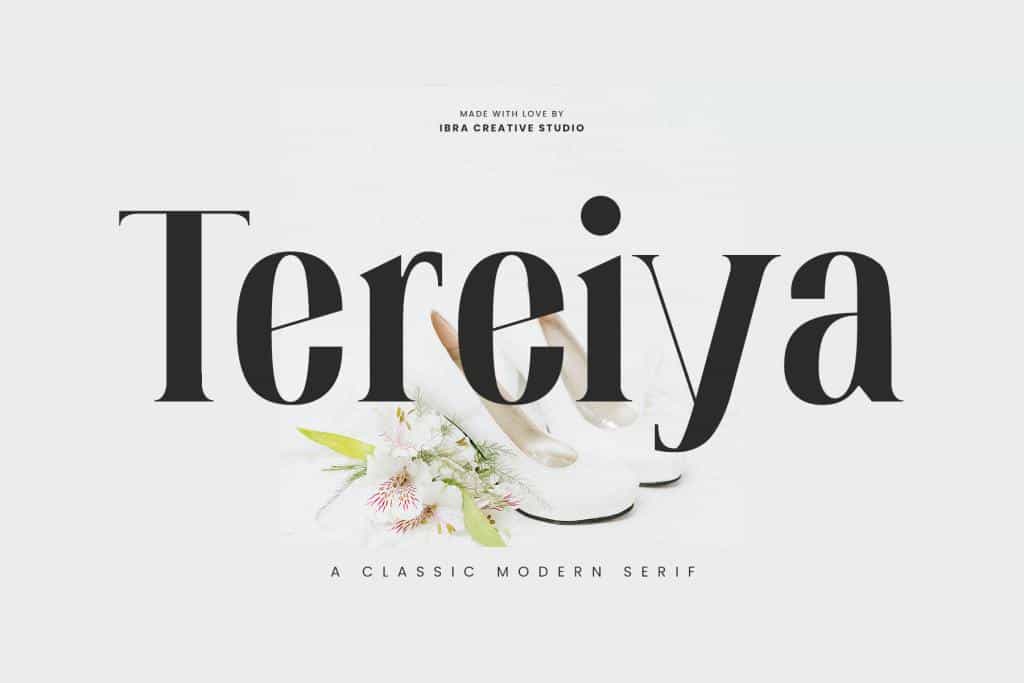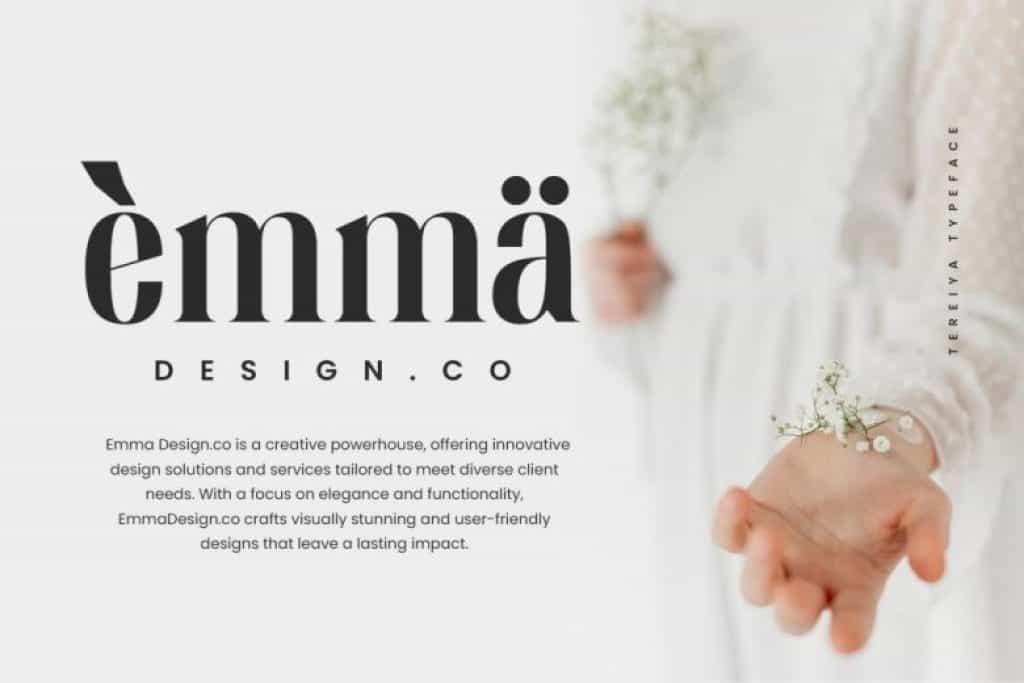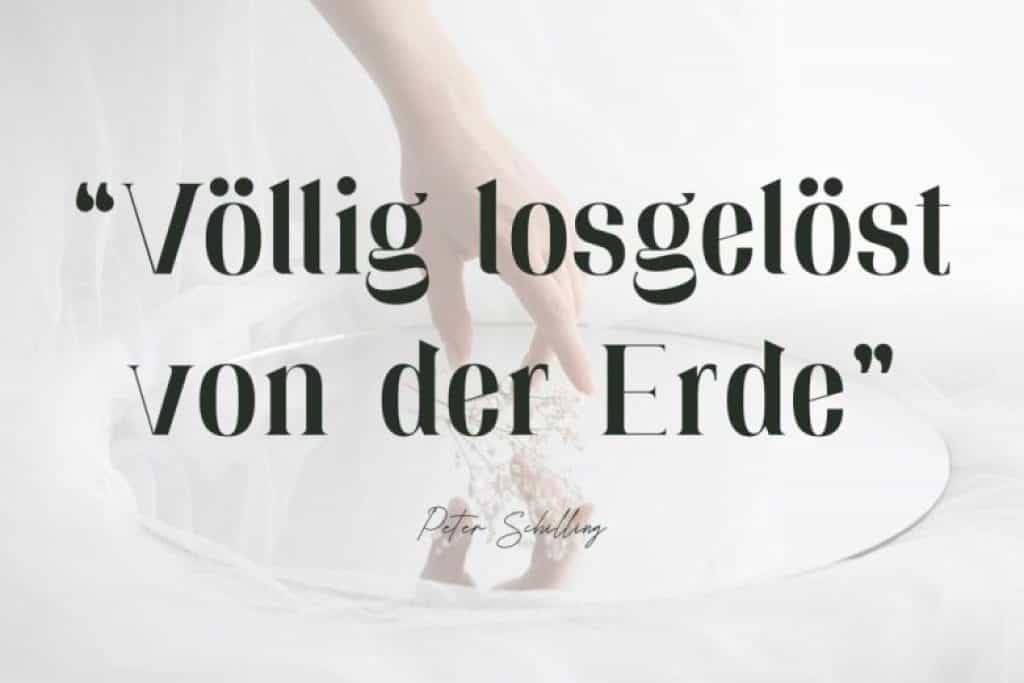
Tereiya is an innovative serif typeface with vibrant strokes and striking yet subtle contrasts, exuding elegance with every letterform crafted to convey refined elegance and sophistication. The letterforms combine thin and thick strokes harmoniously, conveying refined elegance while the serifs give this font its unique style that elevates typographic works.